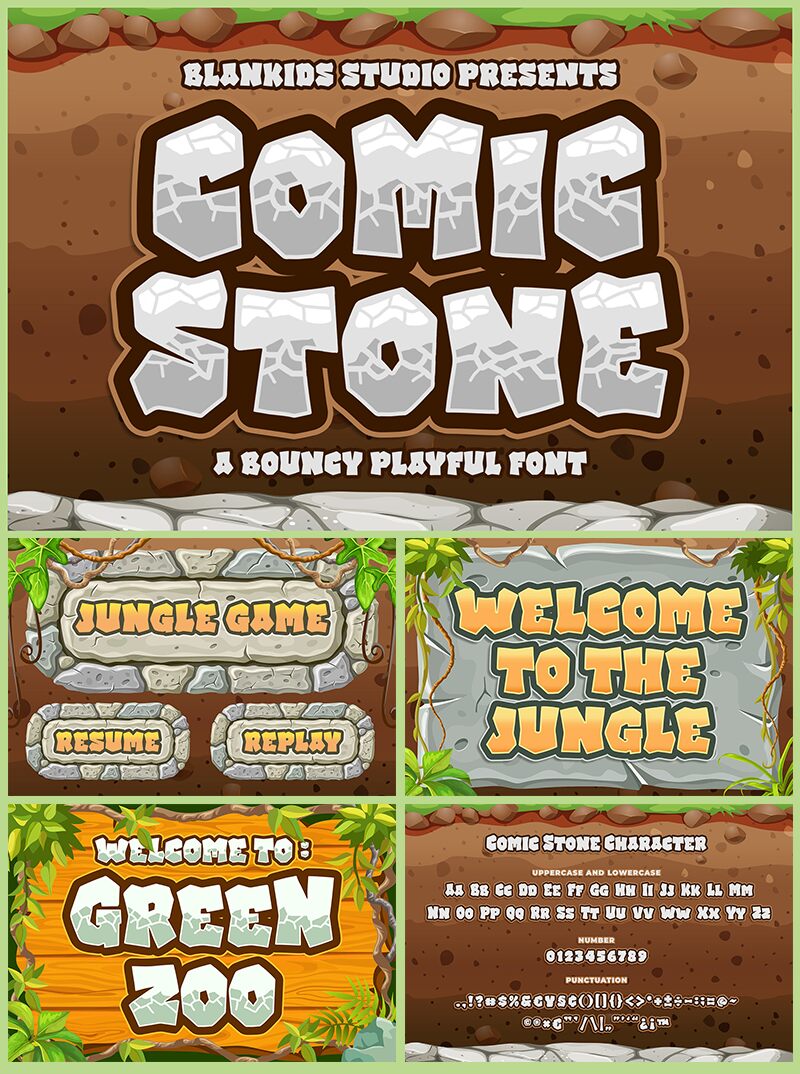
Comic Stone Outline, from the Comic Stone font family, brings a playful energy to any project. Designed by Bangkit Tri Setiadi, this display font captures the whimsy of cartoon aesthetics with its extra-bold, semi-expanded characters. Each letter boasts a dynamic structure that seems to leap off the page, making it an ideal choice for creative endeavors seeking to inject humor and personality.
The style of Comic Stone Outline is characterized by its bold outlines and ample whitespace within each character. This lends itself beautifully to titles, headers, and any application where readability is coupled with a desire for a fun touch. Perfect for children's books, party invitations, or animated web content, this font's versatility allows designers to apply it across various mediums while maintaining a cohesive and engaging visual narrative.